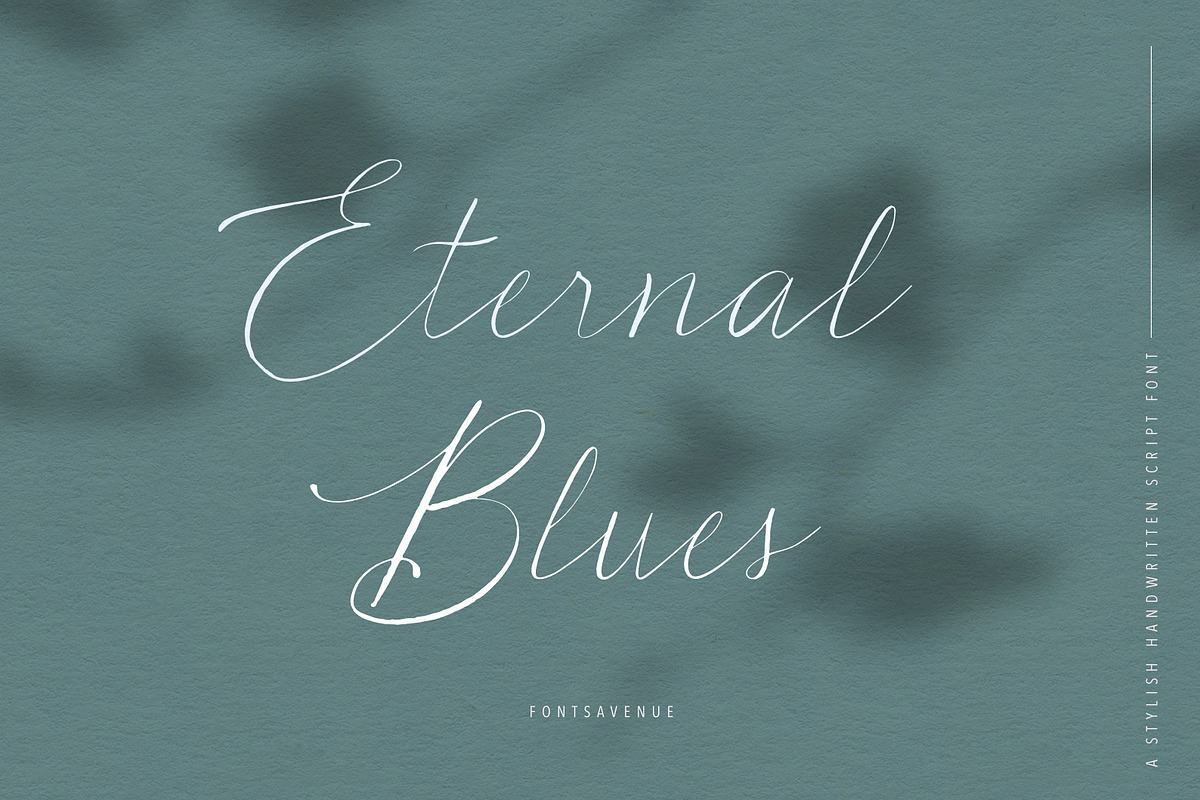
Eternal Blues – Delicate Script Font Free Download is a graceful and emotionally rich typeface that brings elegance, softness, and poetic flair to your designs. Please note, you are required to purchase this font for commercial use. It is available for free download for testing and personal projects only.
With its flowing lines, subtle curves, and handwritten charm, Eternal Blues is perfect for wedding invitations, love letters, branding, quote graphics, packaging, and lifestyle blogs. It captures the beauty of a delicate script with just the right amount of nostalgic soul.
By choosing Eternal Blues – Delicate Script Font Free Download, you're adding a high-quality, easy-to-install font that works flawlessly across all major design platforms. Whether you're creating romantic designs or heartfelt storytelling visuals, Eternal Blues adds timeless emotion and artistic elegance to your typography.